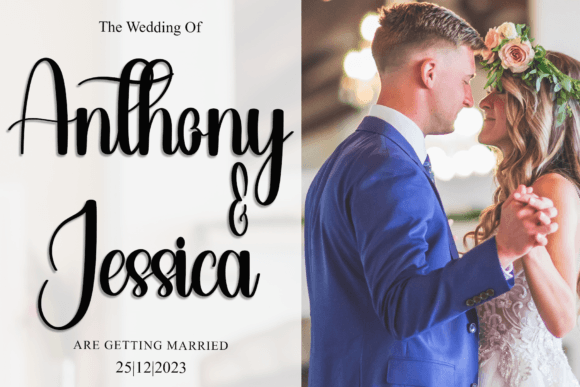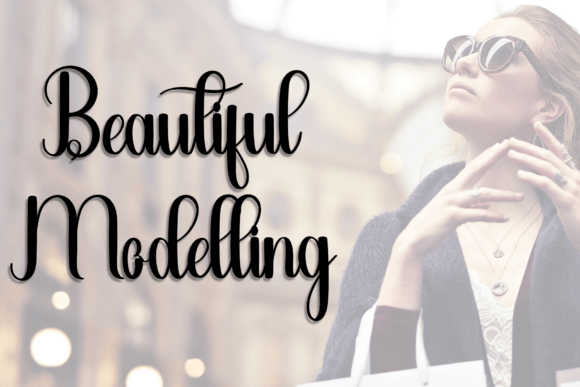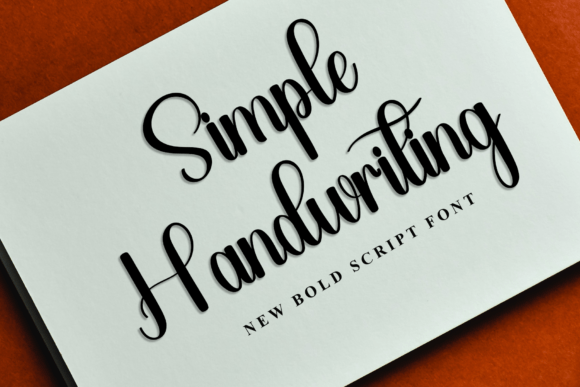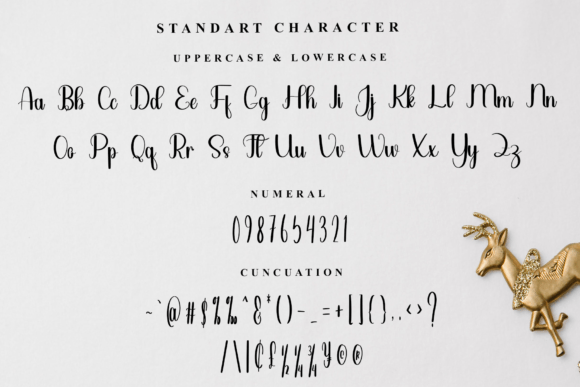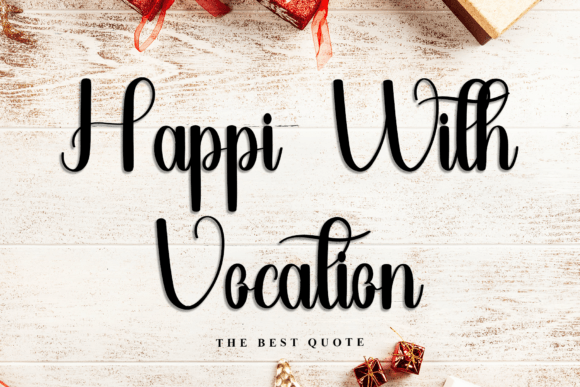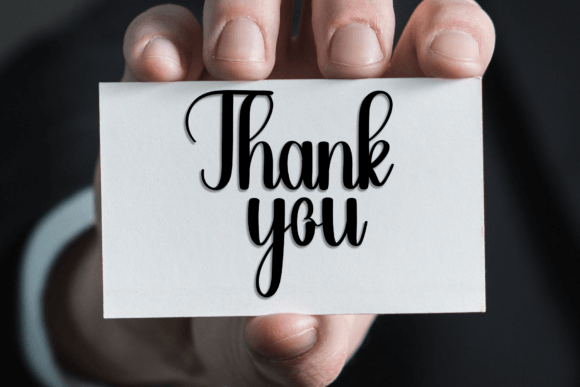
Introduction to January Handwriting Font
January Handwriting is a festive and happy typeface that captures the spirit of the holiday season.
With its decorative elements and unique flair, it adds a touch of charm to your designs Perfect for greeting cards, gift labels, and holiday-themed projects, this font brings a cheerful and nostalgic atmosphere to your words.
Key Features of January Handwriting Font
Why Choose January Handwriting Font?